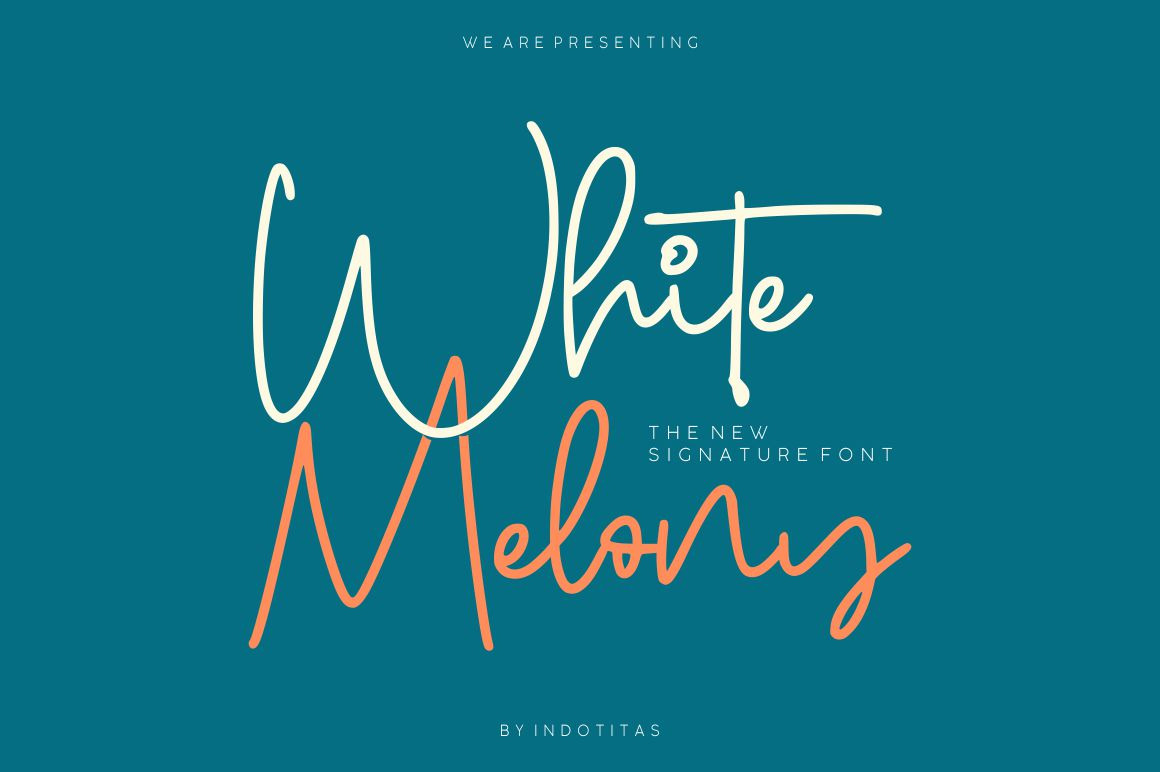
White Melony - New Signature Font
Introducing to beautiful fonts White Melony
White Melony is a elegant and modern looking handwritten script, ideal for use in projects that need an organic and natural style.
This font is great for logo, logotype, branding,wedding, fashion, label, book cover, t-shirt, instagram post, and other, and can add an elegant and classy look to your work.